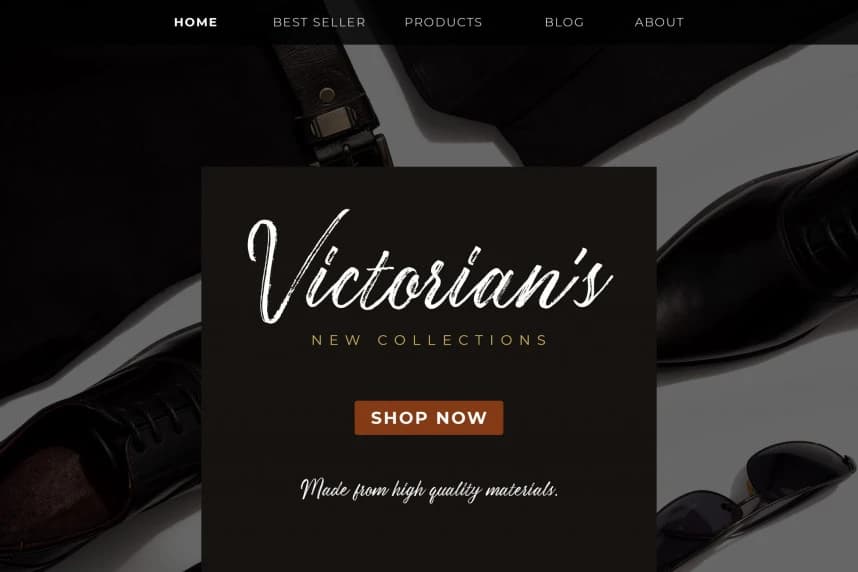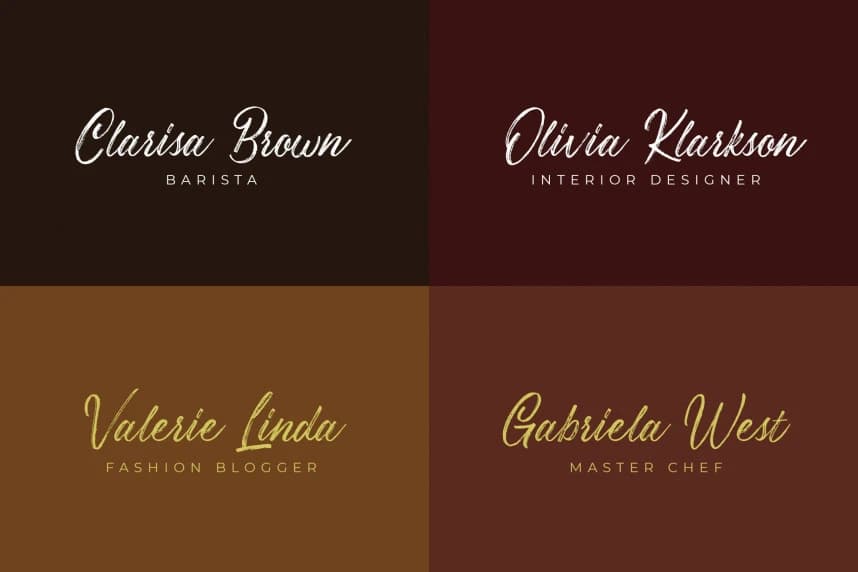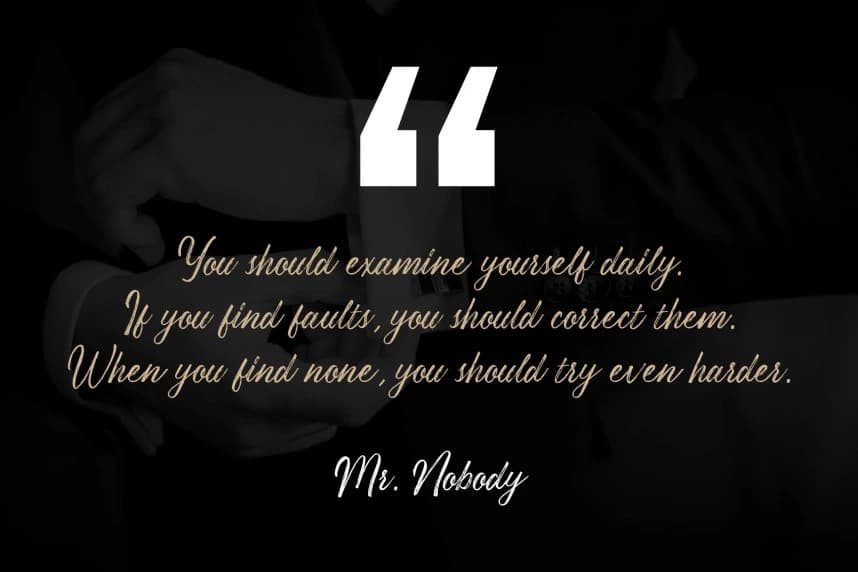
Costiera Brush Font
Costiera Brush Font – Elegant Handbrush is a brush script that is written casually and quickly. Letters are made with brushes on paper. Then scanned and carefully drawn into vector format. That is why Costeria has charming, authentic and relaxed characteristic